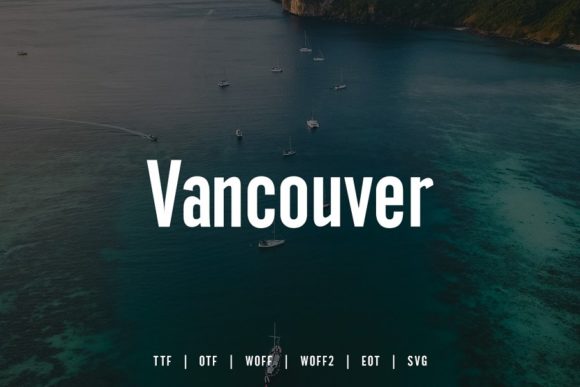
Vancouver Font
Vancouver is a simple and bold sans serif font. This beautiful and professional typeface is suitable for film posters, headlines, block letters, subheadings, logo designs, and so much more.